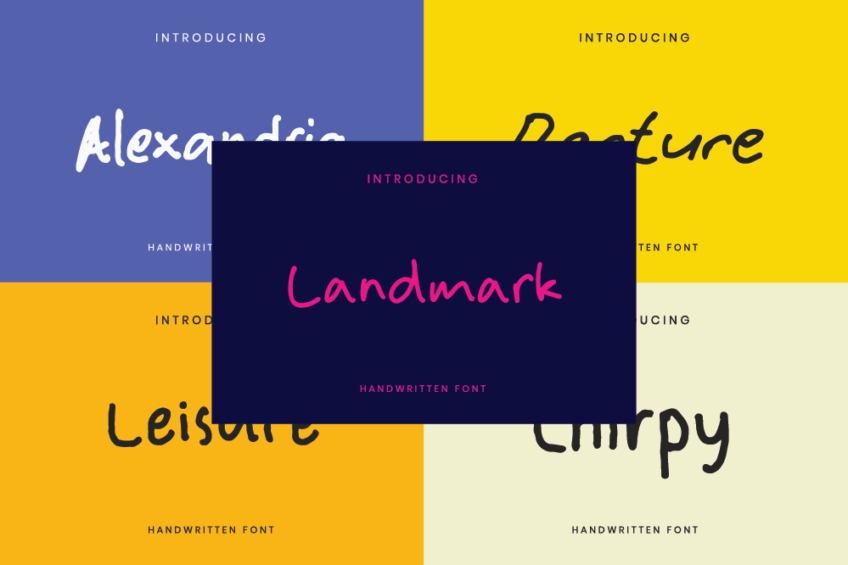
Landmark HF
Alexandria HF
Rapture HF
Leisure HF
Chirpy HF
Explore endless possibilities with the Handwritten Font Bundle Vol.7, a curated collection crafted for captivating book cover font. This bundle offers a diverse range of handwritten fonts, each adding a unique touch to your book covers. From elegance to whimsy, find the perfect font to express your narrative and captivate your readers.
Whether you’re designing a novel, poetry collection, or any literary masterpiece, the Handwritten Font Bundle Vol.7 provides the versatility you need. Elevate your book covers with the charm of this book cover font that turn each cover into a work of art.